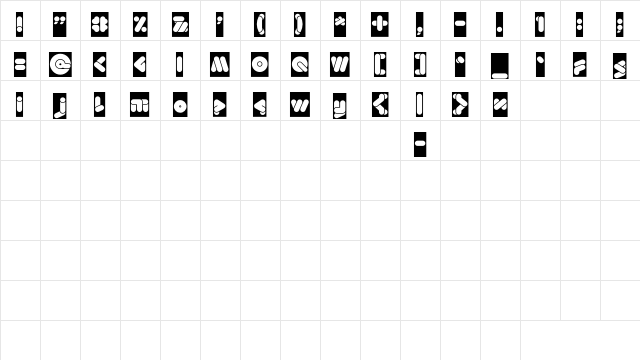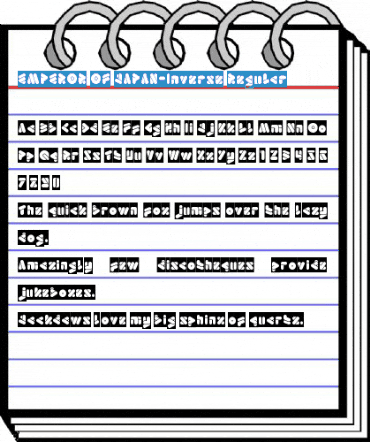
Complete EMPEROR OF JAPAN-Inverse Regular glyph index. Displaying only characters natively supported by EMPEROR OF JAPAN-Inverse Regular font.
EMPEROR OF JAPAN-Inverse is a composed and adaptable typeface that performs quietly and consistently across a wide range of design contexts.